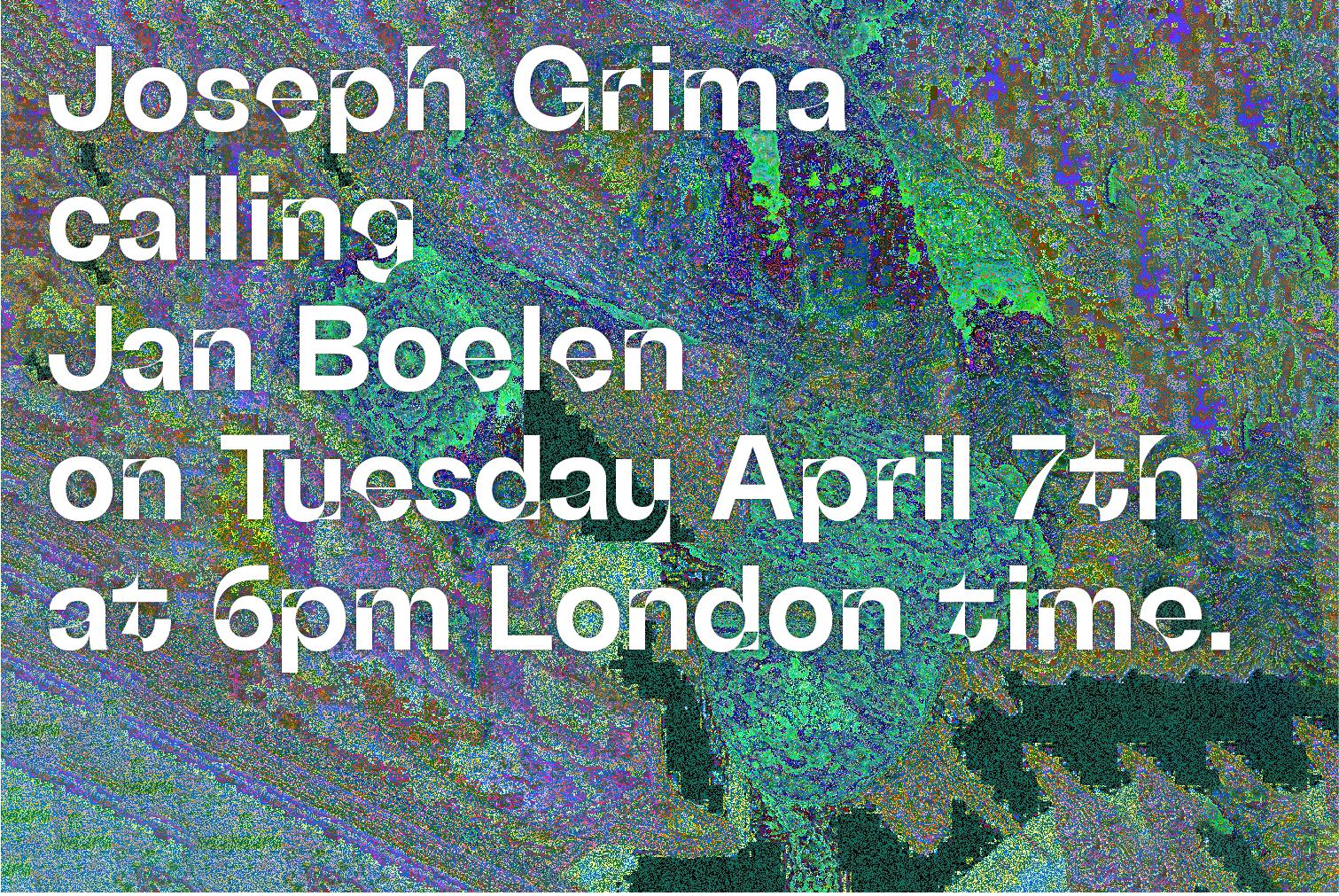
UltraSolar is in orbit, a new exploration based on the Wasa typeface and inspired by the oldest star, Methuselah. UltraSolar features new-era letterforms, a new take on inktraps, weird details, multiple stylistic sets, and a set of DingBats. Even so far from the end of our galaxy, UltraSolar, and by miracle, is still readable in small size. Better try observing it through a telescope 🔭 with Focal stylistics set.
Design: Adrien Midzic Production: PizzaTypefaces